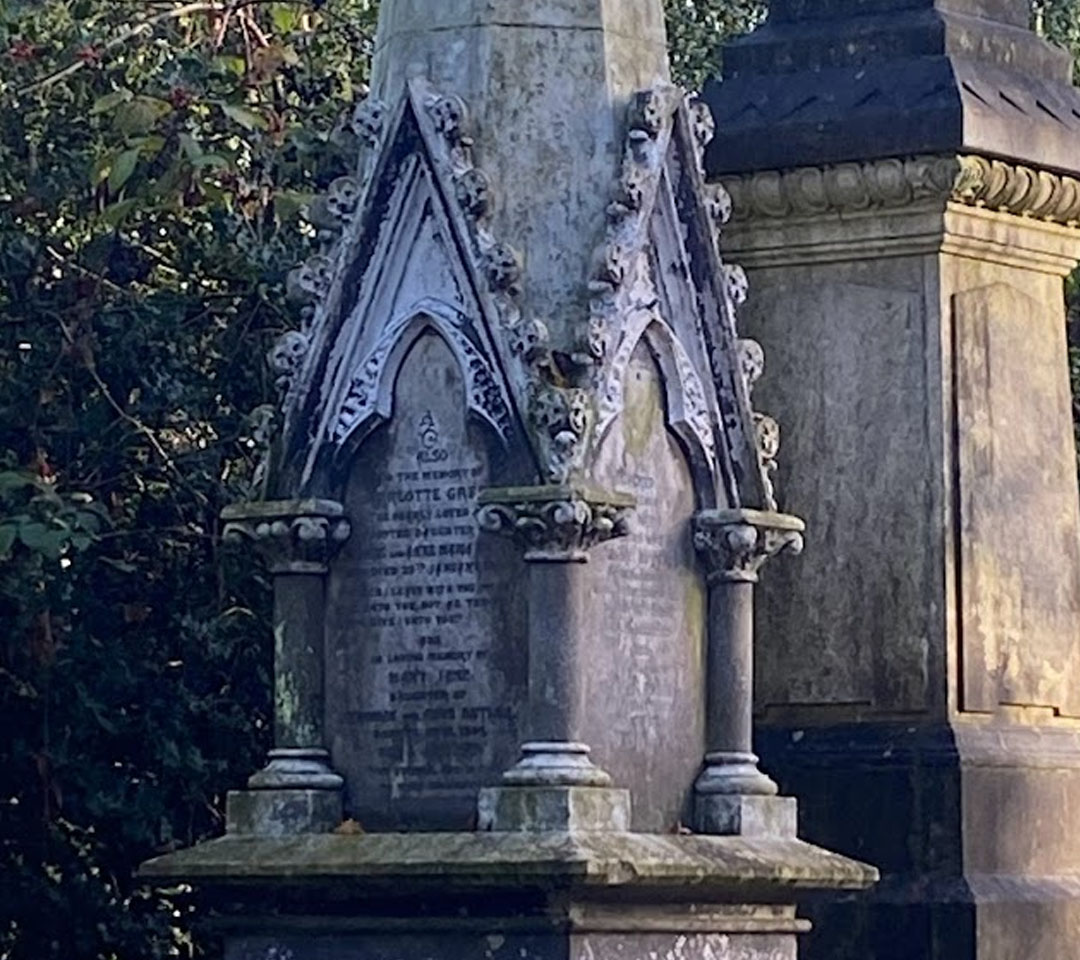
The intentions for my font are based on the construction of each letter relating to the archaism of the cemetery itself. Each grave represents one person and tells a story not only from the decorative details of the tombstones but the information written on it as well. Due to its age, some of the words are illegible but therefore represents an archive of history, personal to each gravestone. My font explores the importance of the idea of history and ‘archive’ but also the organic nature of time passing.